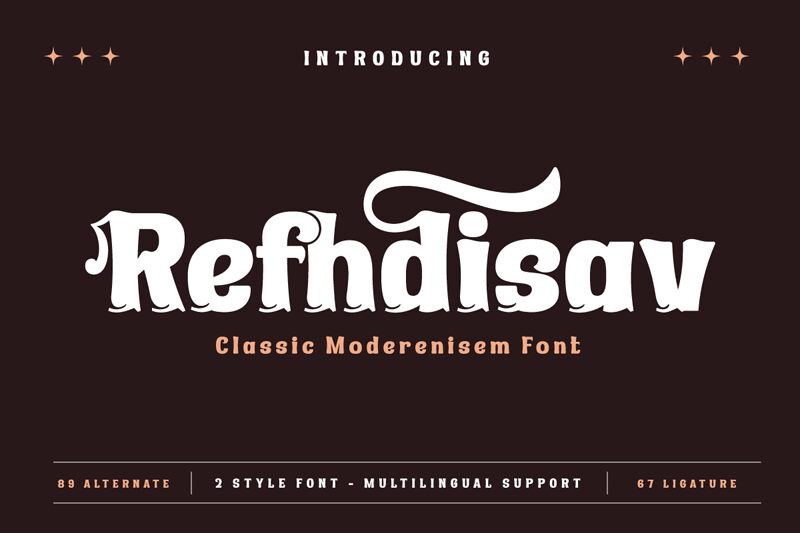
Refhdisav Trial Regular
Refhdisav font, designed by Twinletter, encapsulates a vibrant retro charm that commands attention. Its bold presence and striking forms are perfect for evoking nostalgia while maintaining a modern flair. The smooth curves and playful angles create a sense of movement, making it an ideal choice for eye-catching headlines and promotional materials.
Visually, Refhdisav stands out with its robust character, inviting creativity in various design contexts. It excels in lively branding projects, engaging posters, or captivating event invitations where impact is essential. This font not only serves functional purposes but also enriches the aesthetic experience with its unique style, infusing any project with personality and flair. Whether for web or print use, Refhdisav promises to elevate any creative endeavor.